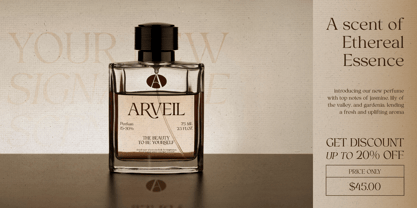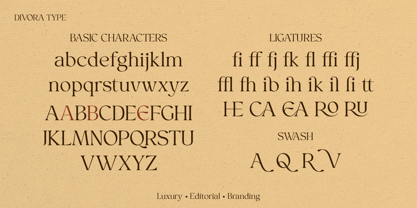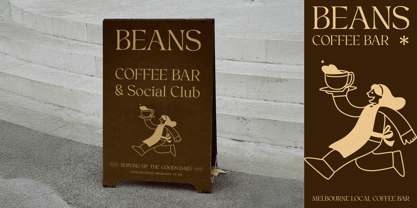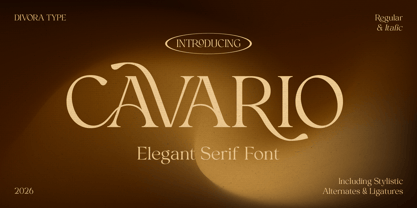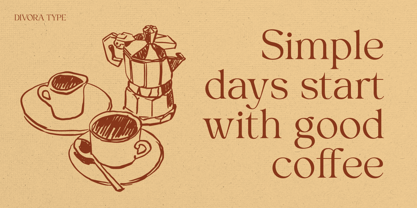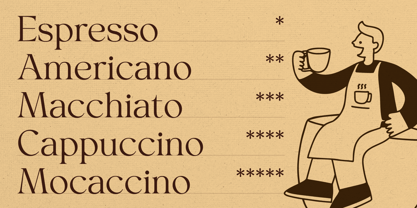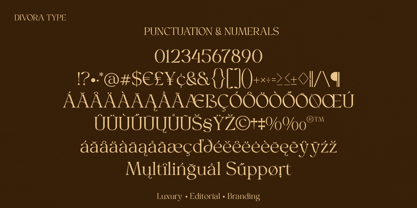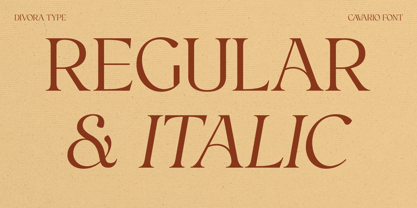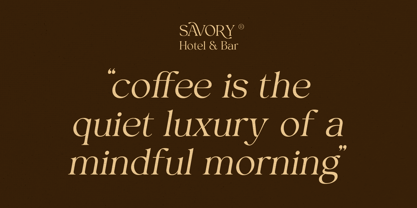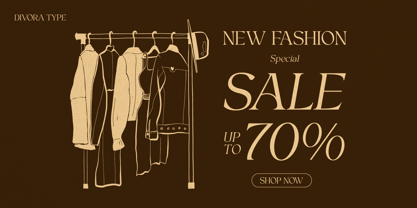
Cavario
by Divora Type
The Cavario Font Family was designed by Dhian Tri Antono and published by Divora Type. Cavario contains 2 styles and family package options. More about this family
Cavario is an elegant serif typeface crafted to bring sophistication and timeless beauty to modern design. Designed with a refined structure and graceful curves, Cavario blends classic serif aesthetics with subtle contemporary details, making it perfect for high-end branding, editorial layouts, invitations, and luxury packaging. Key Features: - Elegant serif design with modern touch - Regular & Italic styles - Beautiful ligatures (fi, fl, and more - Stylistic alternates (ss01) and swash (swsh) for creative variations - Carefully crafted letterforms with refined details - Perfect for branding, logos, editorial, fashion, and luxury design. Cavario is more than just a typeface — it is a statement of elegance, designed to elevate your visual identity with a sense of refinement and distinction.
Designers: Dhian Tri Antono
Foundry: Divora Type